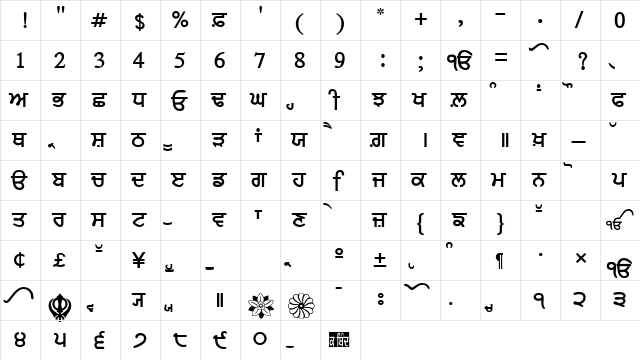
AnmolLipiHeavy Regular
Design Context for AnmolLipiHeavy Typeface
AnmolLipiHeavy offers clean, dependable letterforms without strong stylistic allegiance, making it a practical choice for designers who need flexibility.
Pro Tip: Pair AnmolLipiHeavy with a font of contrasting weight or personality to build a more expressive typographic hierarchy.